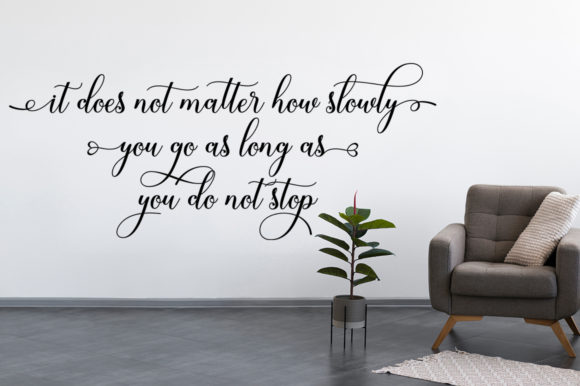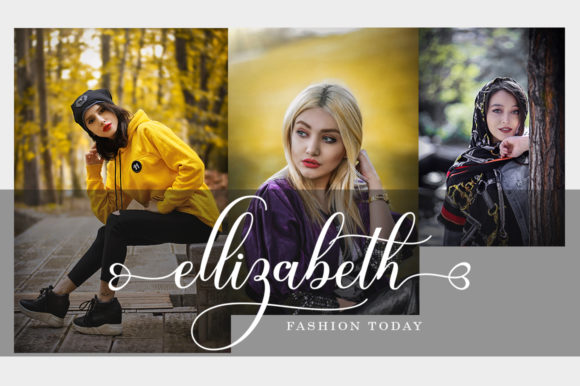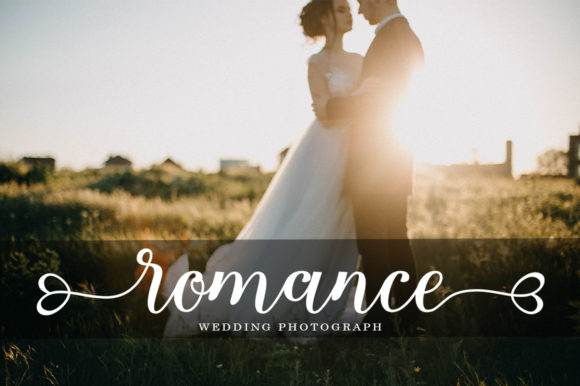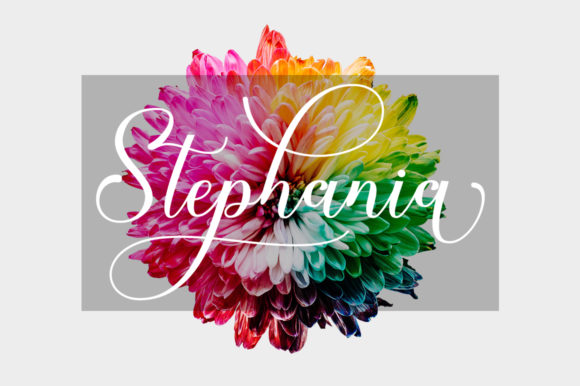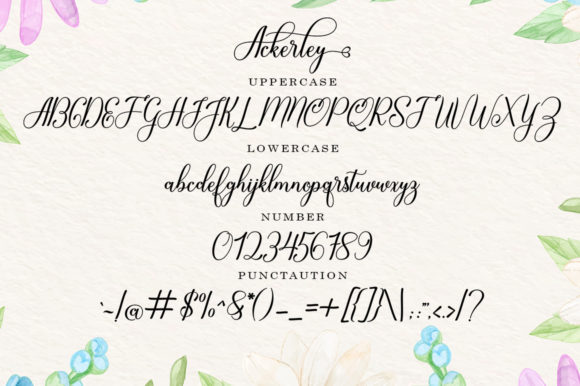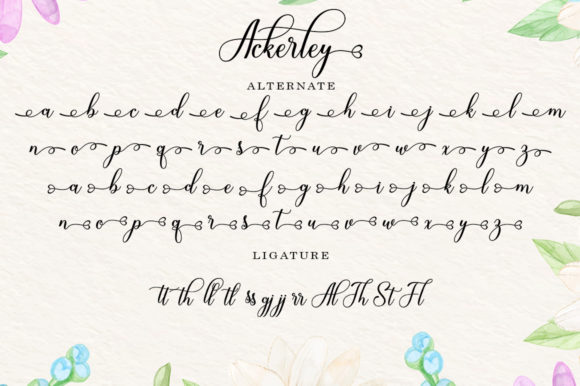
Ackerley Font: Elevate Your Designs with Elegance and Sophistication
Are you looking for a font that exudes elegance, sophistication, and a touch of modernity? Look no further than the Ackerley Font, a beautiful handwritten font that is sure to take your designs to the next level. In this article, we’ll dive into the world of Ackerley Font, exploring its features, benefits, and uses, and why it’s a must-have for designers and crafters alike.
What is Ackerley Font?
Ackerley Font is an elegant and flowing handwritten font that is perfect for designs that require a touch of sophistication and class. With its beautiful calligraphic influences, this font is sure to add a level of refinement and poise to any project. Whether you’re working on a branding campaign, a wedding invitation, or a packaging design, Ackerley Font is the perfect choice.
Key Features of Ackerley Font
So, what makes Ackerley Font so special? Here are just a few of its key features:
- PUA Encoding: Ackerley Font is PUA (Private Use Area) encoded, which means that you can access all of the glyphs and swashes with ease. This makes it easy to customize your designs and add your own personal touch.
- Elegant and Flowing: Ackerley Font is characterized by its elegant and flowing lines, which give it a beautiful, hand-crafted feel.
- Classy Calligraphic Influences: This font maintains its classy calligraphic influences while still feeling contemporary and fresh.
- Contemporary and Fresh: Ackerley Font is perfect for designers who want to create modern and stylish designs that still have a touch of elegance and sophistication.
Benefits of Using Ackerley Font
So, why should you choose Ackerley Font for your next design project? Here are just a few of the benefits of using this beautiful font:
- Adds Elegance and Sophistication: Ackerley Font is the perfect way to add a touch of elegance and sophistication to your designs.
- Versatile: This font is versatile and can be used for a wide range of design projects, from branding and advertising to packaging and wedding invitations.
- Easy to Use: Ackerley Font is easy to use and can be accessed with ease, thanks to its PUA encoding.
- High-Quality: This font is of high-quality and is sure to impress your clients and audience.
Uses of Ackerley Font
Ackerley Font is perfect for a wide range of design projects, including:
- Branding and Advertising: Use Ackerley Font to create elegant and sophisticated branding campaigns that will leave a lasting impression on your audience.
- Wedding Invitations: This font is perfect for wedding invitations, adding a touch of romance and elegance to your designs.
- Packaging Design: Ackerley Font is great for packaging design, adding a level of sophistication and refinement to your products.
- Stationery and Greeting Cards: Use this font to create beautiful stationery and greeting cards that will make your audience feel special.
In conclusion, Ackerley Font is a beautiful and elegant handwritten font that is perfect for designers and crafters who want to add a touch of sophistication and elegance to their designs. With its PUA encoding, elegant and flowing lines, and classy calligraphic influences, this font is sure to take your designs to the next level. Whether you’re working on a branding campaign, a wedding invitation, or a packaging design, Ackerley Font is the perfect choice.